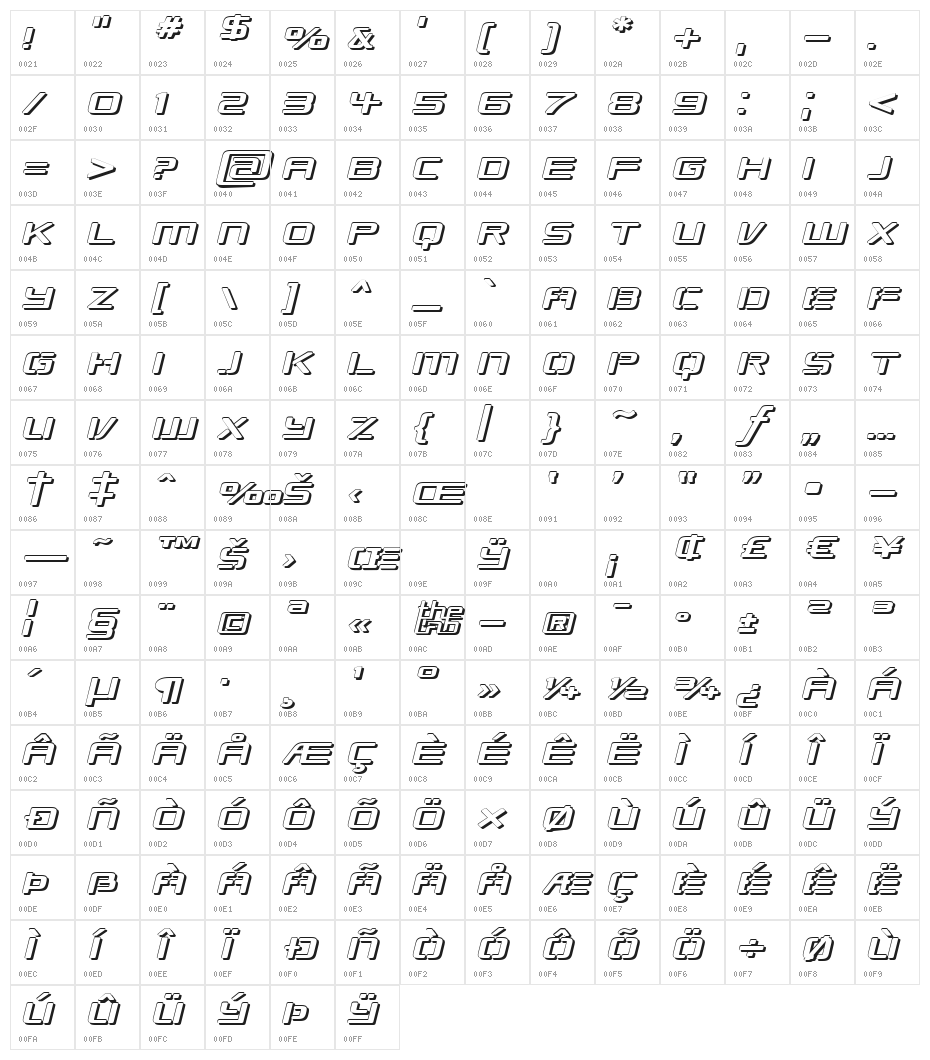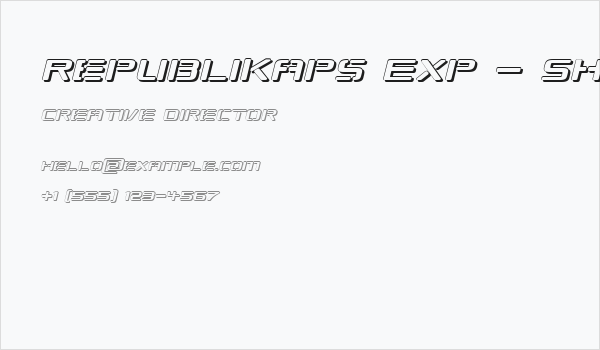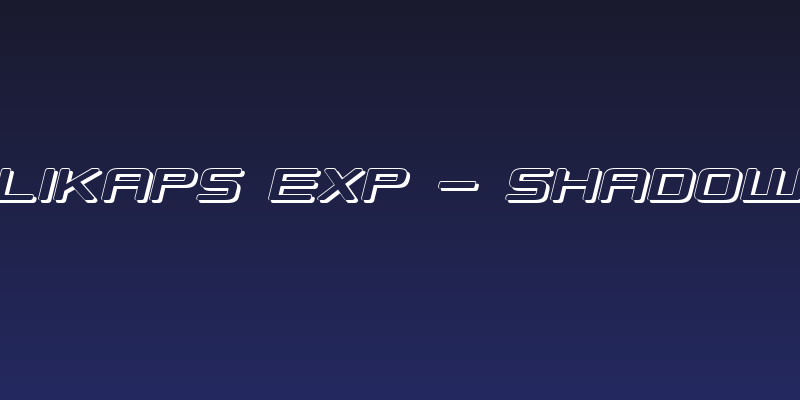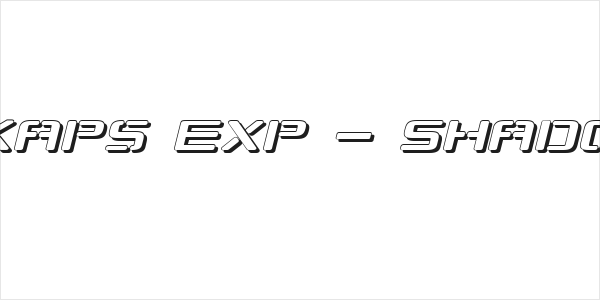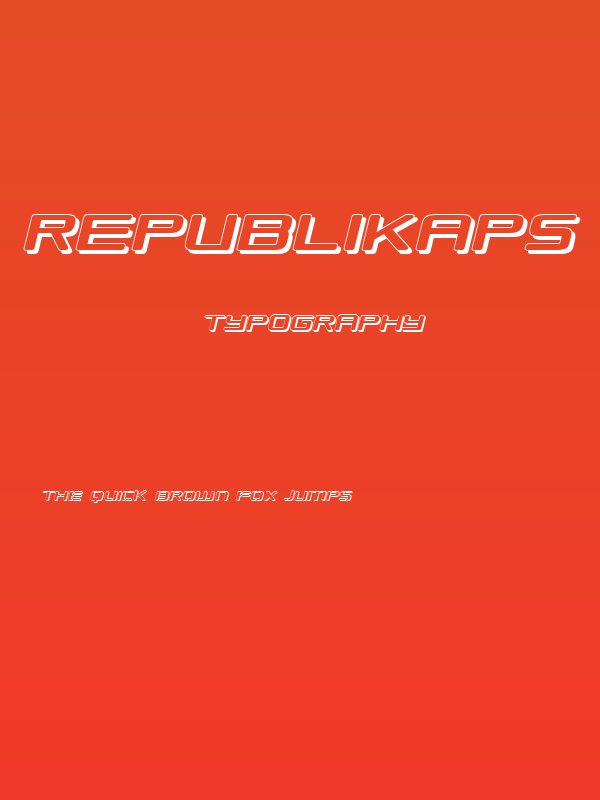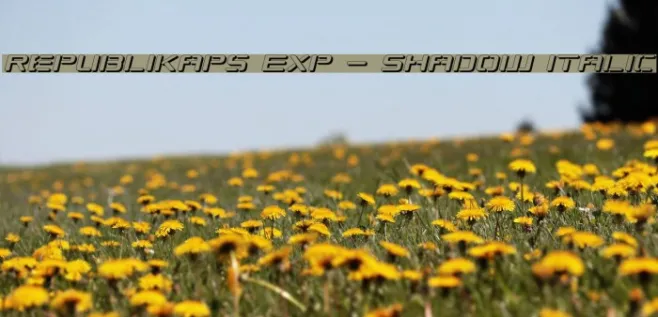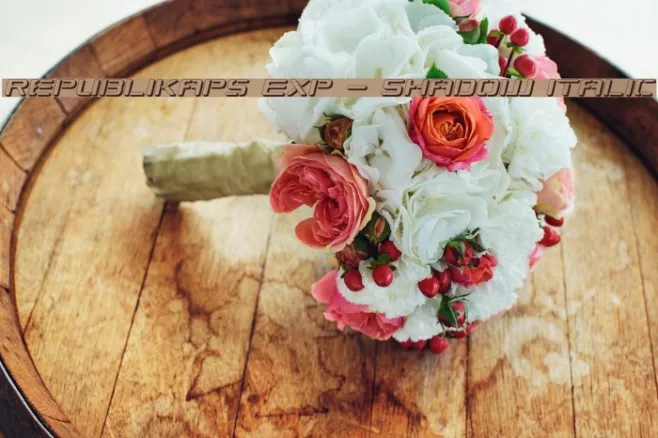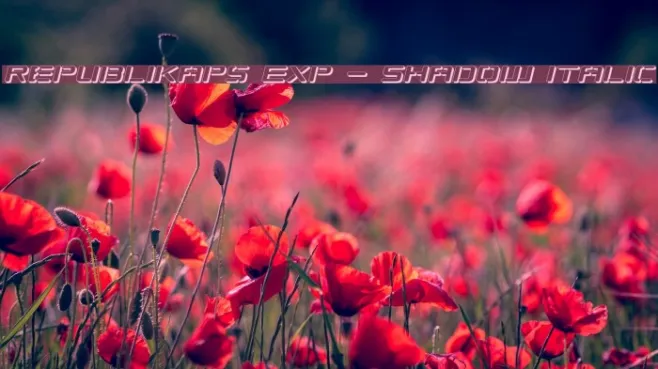
Republikaps Exp - Shadow Italic Font
Republikaps Exp - Shadow Italic Description
This font features a bold, modern design with a distinct shadow effect that adds depth and dimension to each character. The italicized style gives it a dynamic and forward-moving appearance, making it ideal for projects that require a sense of motion or energy. The characters are designed with a geometric precision, featuring clean lines and sharp angles that contribute to its contemporary aesthetic. The spacing between characters is balanced, ensuring readability while maintaining its unique style. This font is versatile, suitable for a variety of creative applications where a bold statement is needed.
| Proposed Projects | Ideal for branding, posters, headlines, and any design project that requires a modern and energetic look. |